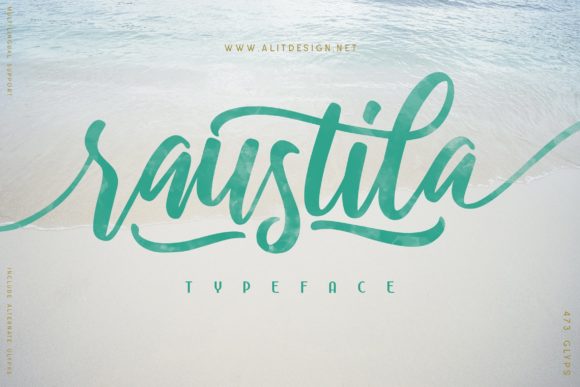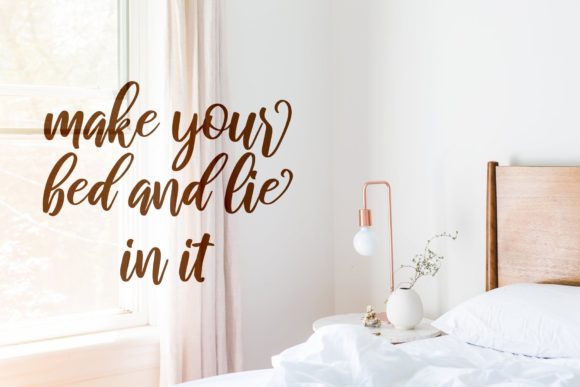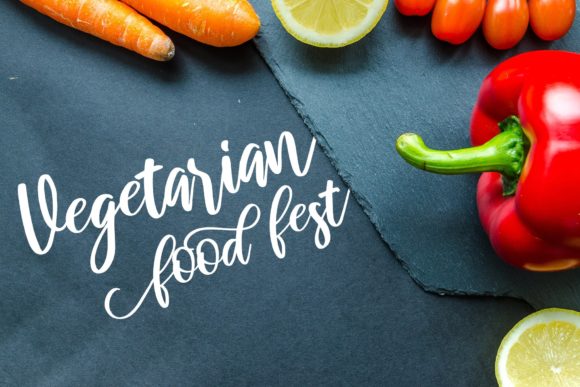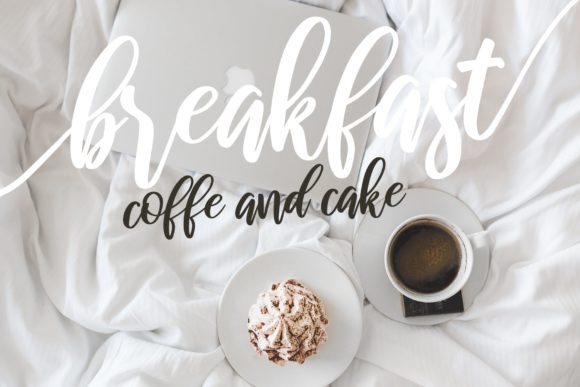
Raustila Font
About Raustila Font
Raustila is an incredibly charming and sweet script that will add a level of cuteness to your next design idea. Fall in love with its effortless beauty.